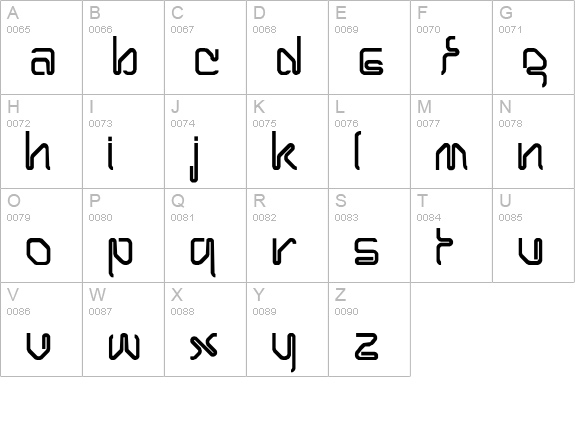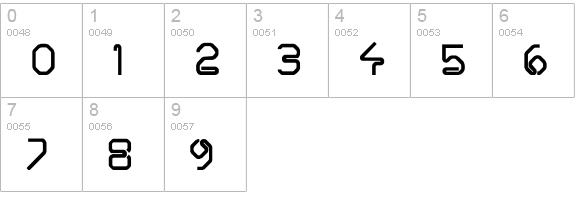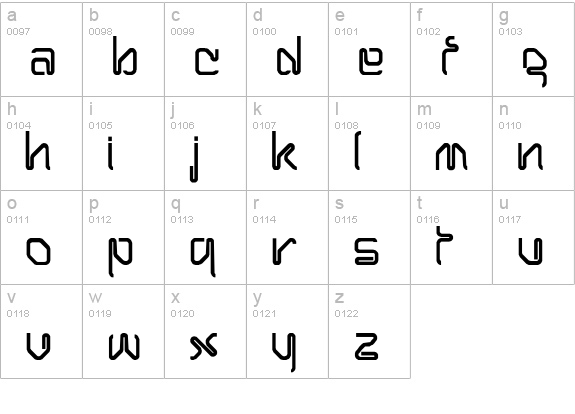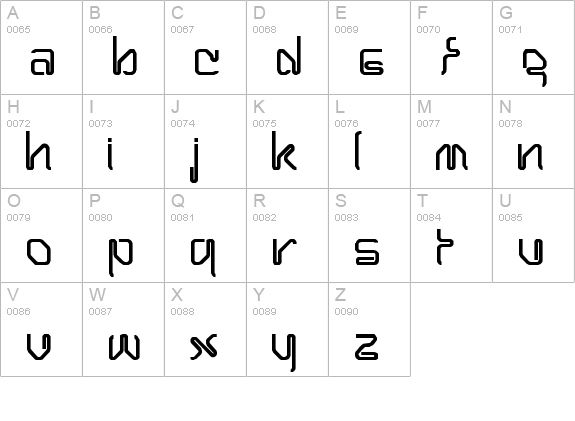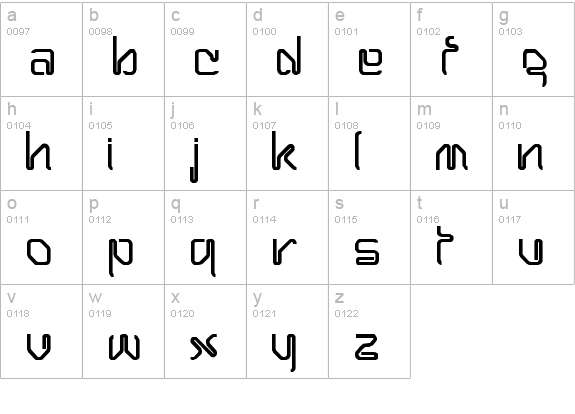
Bobbipin Font Details
Introducing Bobbipin font, a stylish and versatile typeface that is sure to make your designs stand out. With its sleek lines and modern aesthetic, Bobbipin is perfect for a wide range of projects, from logos to posters to social media graphics. What sets Bobbipin apart is not just its elegant design, but also the fact that it is completely free to use. Yes, you read that right - Bobbipin is freely available to download at FontsMarket.com, so you can start using it in your projects right away without any cost. Whether you're a designer looking to add a fresh touch to your work or a business owner wanting to elevate your branding, Bobbipin font is a fantastic choice. Download it today and see how it can take your designs to the next level.